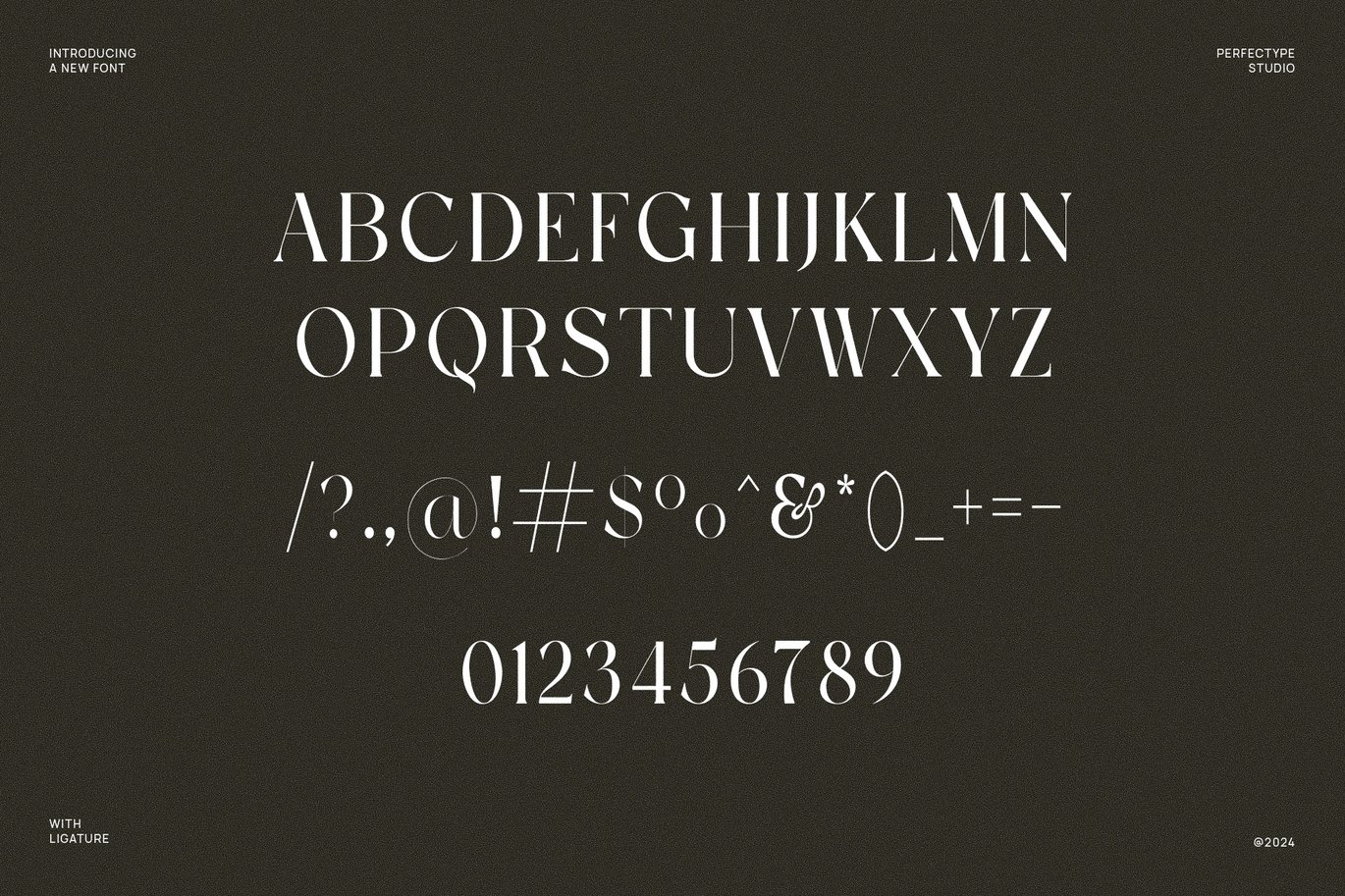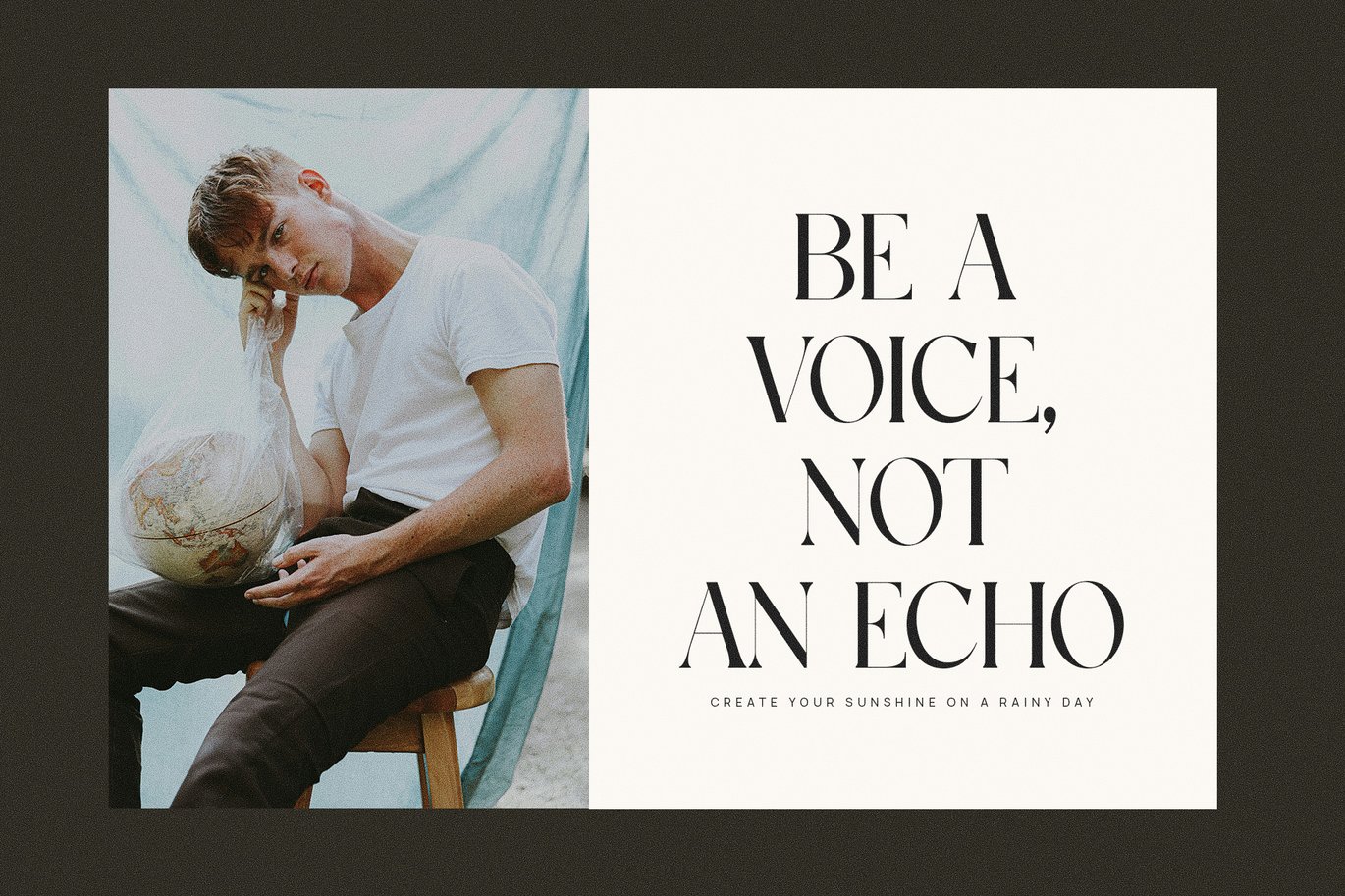
Vogue is a classic luxury serif from Perfectype. Its capitals are upright and fairly narrow, with crisp hairlines and gently bracketed serifs, so a single word set large looks like a fashion magazine cover. Perfectype describes it as modern yet classic, and the specimen bears that out: it feels traditional without being fussy.
The full font includes OTF and TTF files with numerals, punctuation, Western European accents and a few ligatures. It is a display face first, but the clean spacing keeps short statements and quotes readable, as the specimen’s “Be a voice, not an echo” poster shows.
Best uses for Vogue
- Fashion and beauty mastheads and logos
- Skincare and fragrance packaging
- Editorial headlines and pull quotes
- Wedding and event stationery
- Restaurant and lifestyle branding
Vogue looks best next to a simple sans. Inter is clean and neutral for body text and web layouts. For a softer, more editorial feel, try DM Sans. If you want a second serif for long reading, Libre Baskerville is sturdy at small sizes where Vogue’s hairlines would get lost.
Vogue Elegant Serif Typeface – Classic Luxury Font